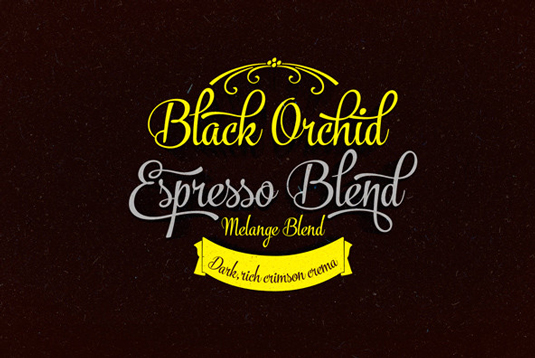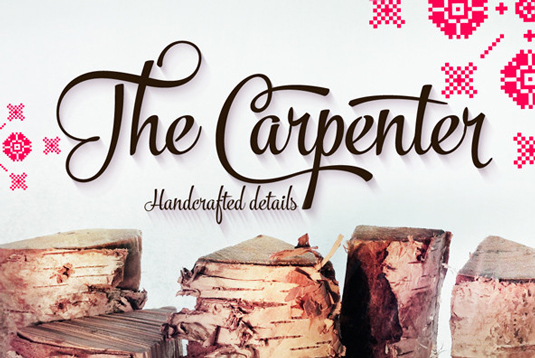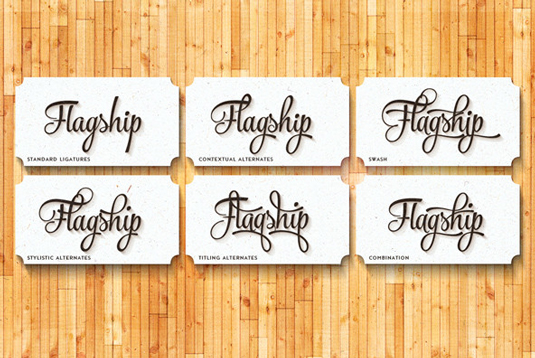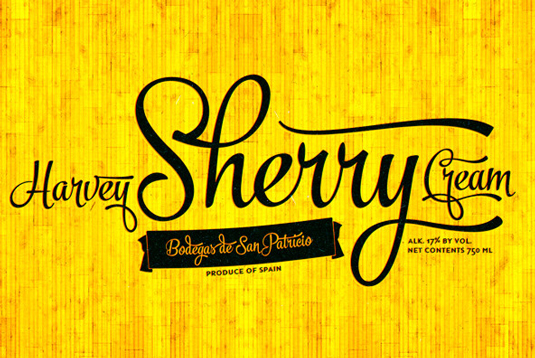
Font of the day: The Carpenter
Every day we showcase the best fonts on the web. Today it's The Carpenter by Emil Bertell.
The Carpenter by Emil Bertell
Created by designer Emil Bertell, The Carpenter, is an elegant script font. Available from YouWorkForThem, the design is described as "an effective and easy to use font for creating ambitious headlines, logos and posters with a custom-made feeling".